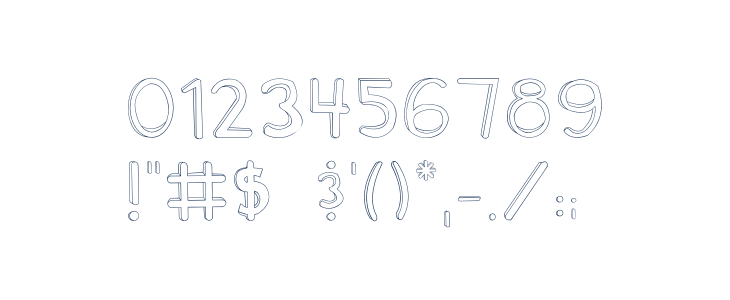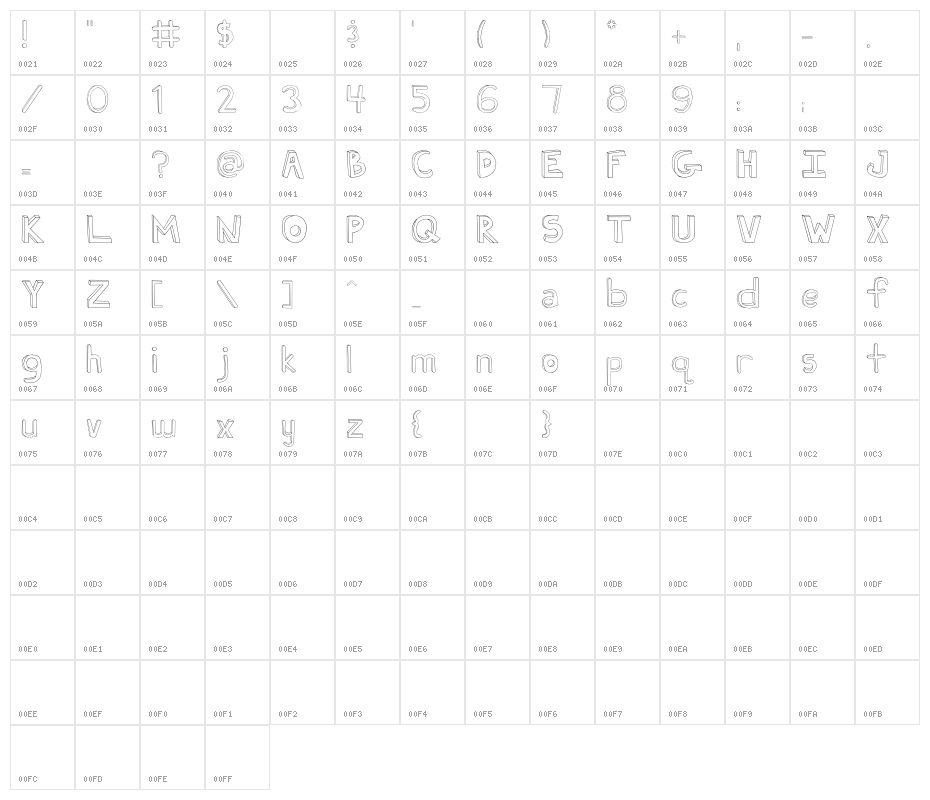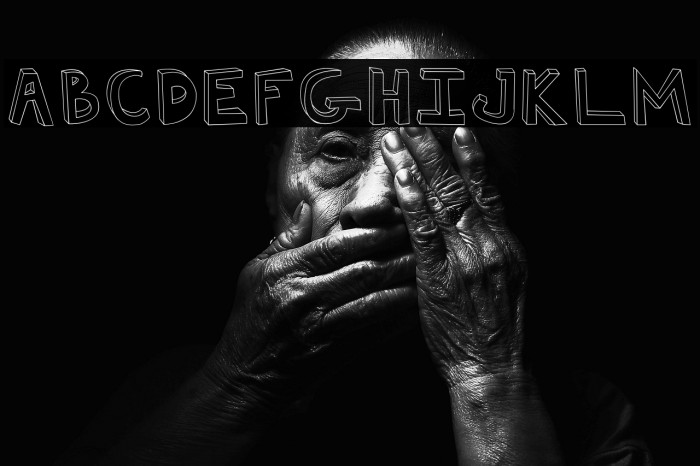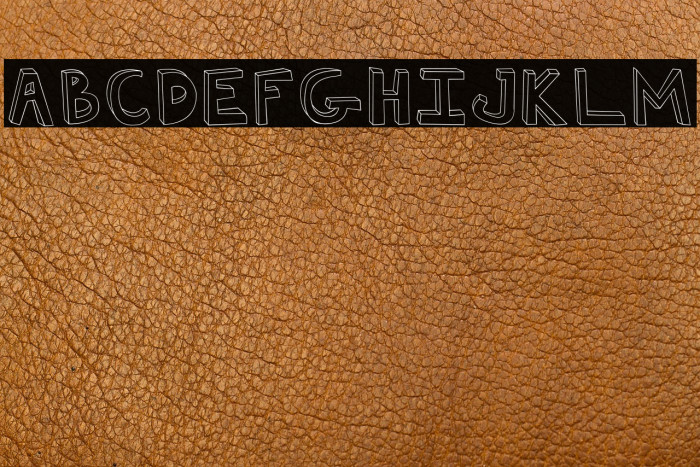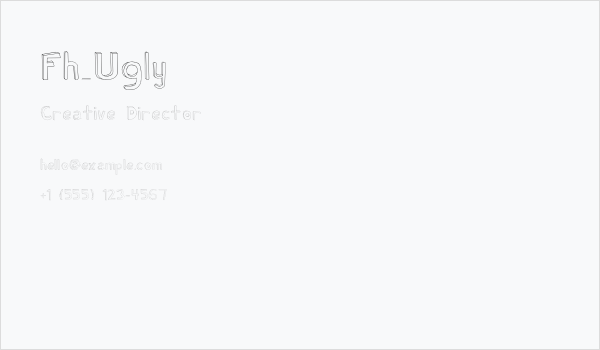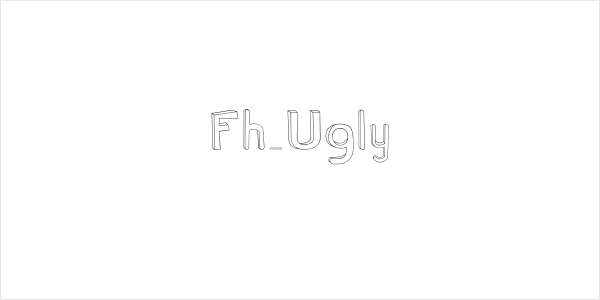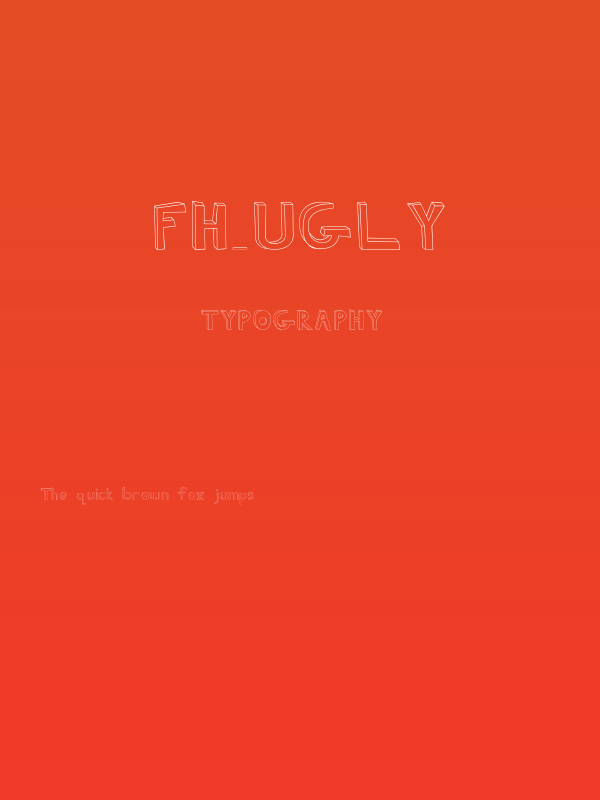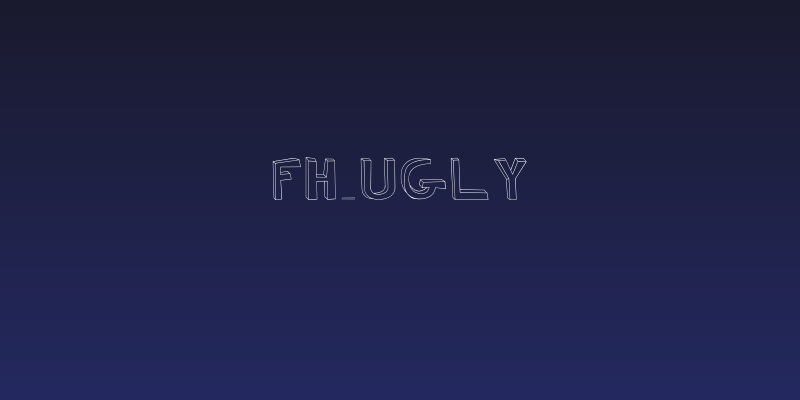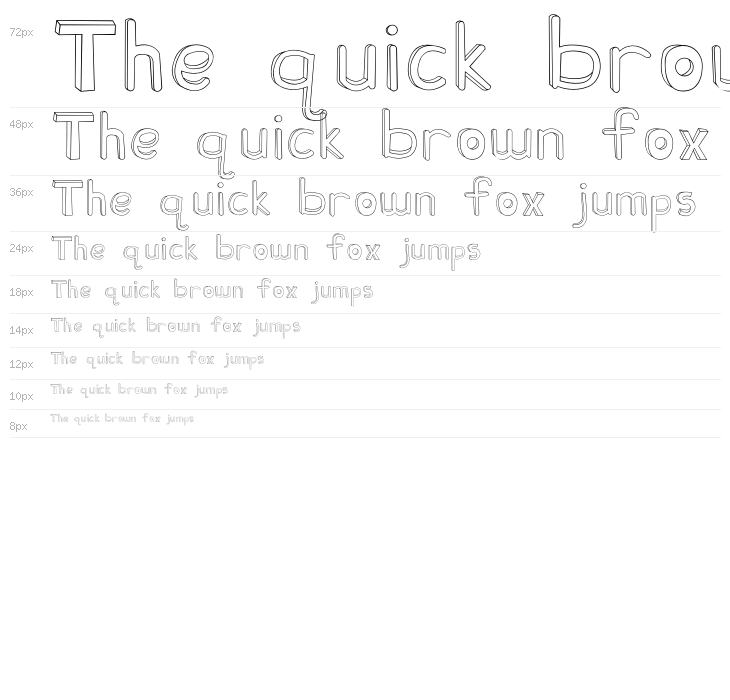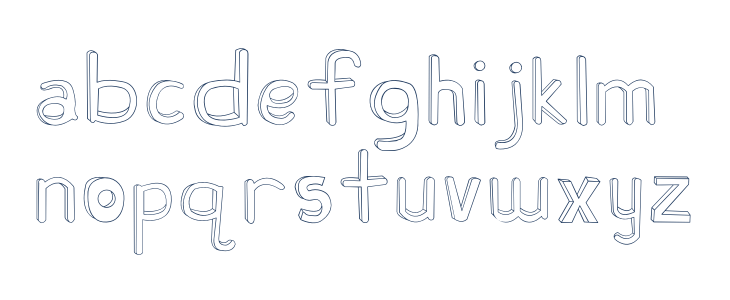
Fh_Ugly Font
Fh_Ugly Description
This font features a playful and quirky design with a hand-drawn aesthetic. The letters are outlined with a double line, giving them a unique, sketch-like appearance. The uppercase and lowercase characters maintain a consistent style, with rounded edges and a slightly irregular form that adds to the whimsical feel. The numbers and special characters follow the same design principles, ensuring a cohesive look across all glyphs. This font's informal and fun style makes it suitable for creative projects that require a touch of personality and charm.